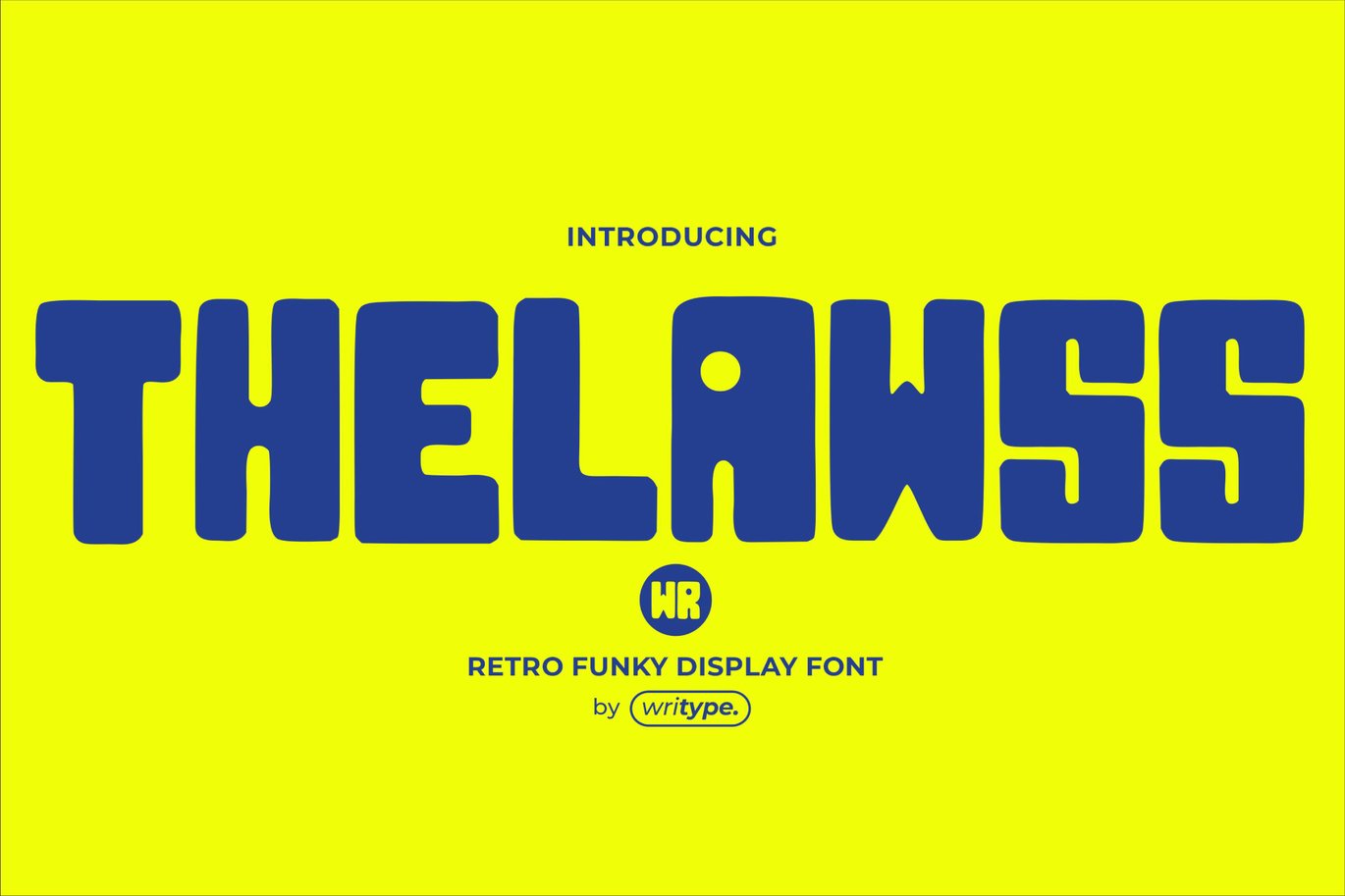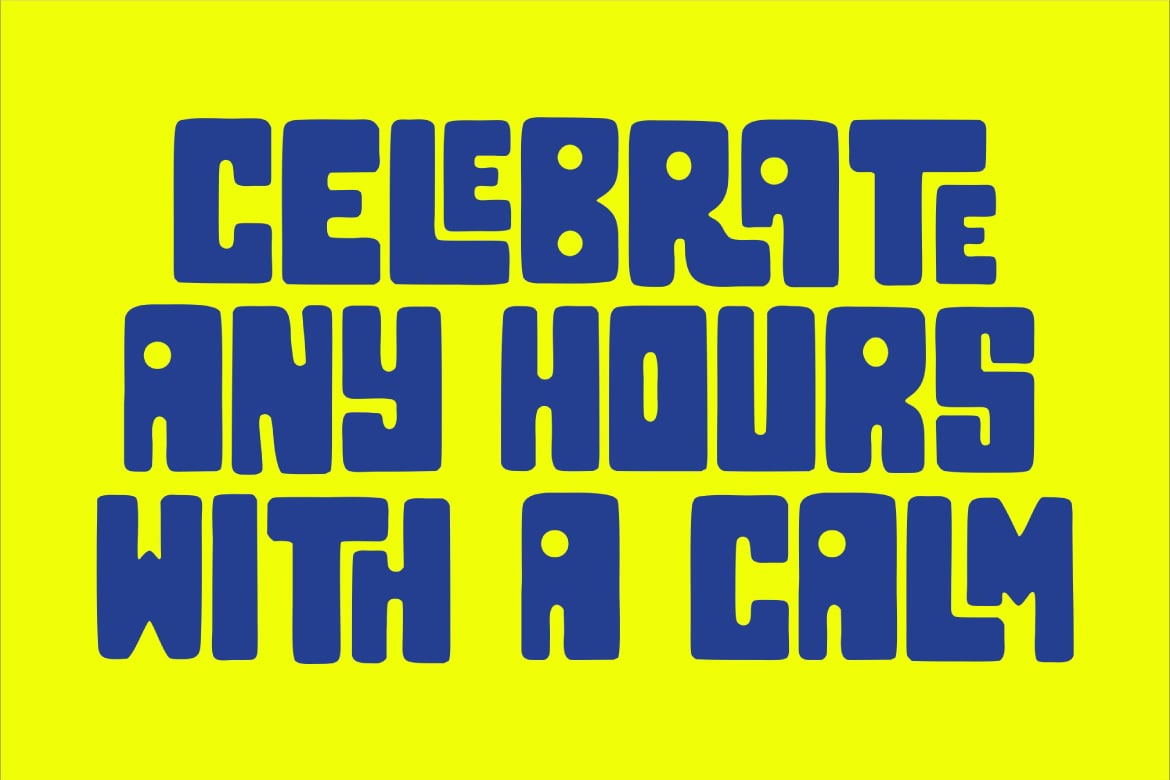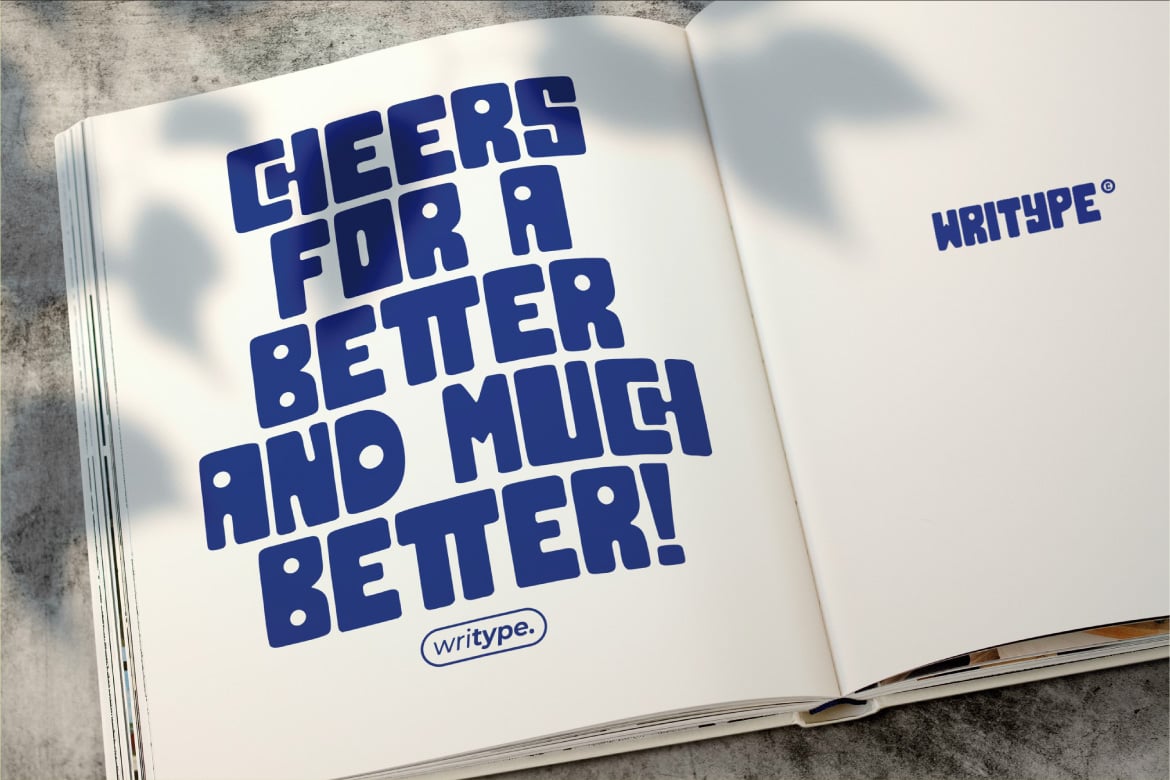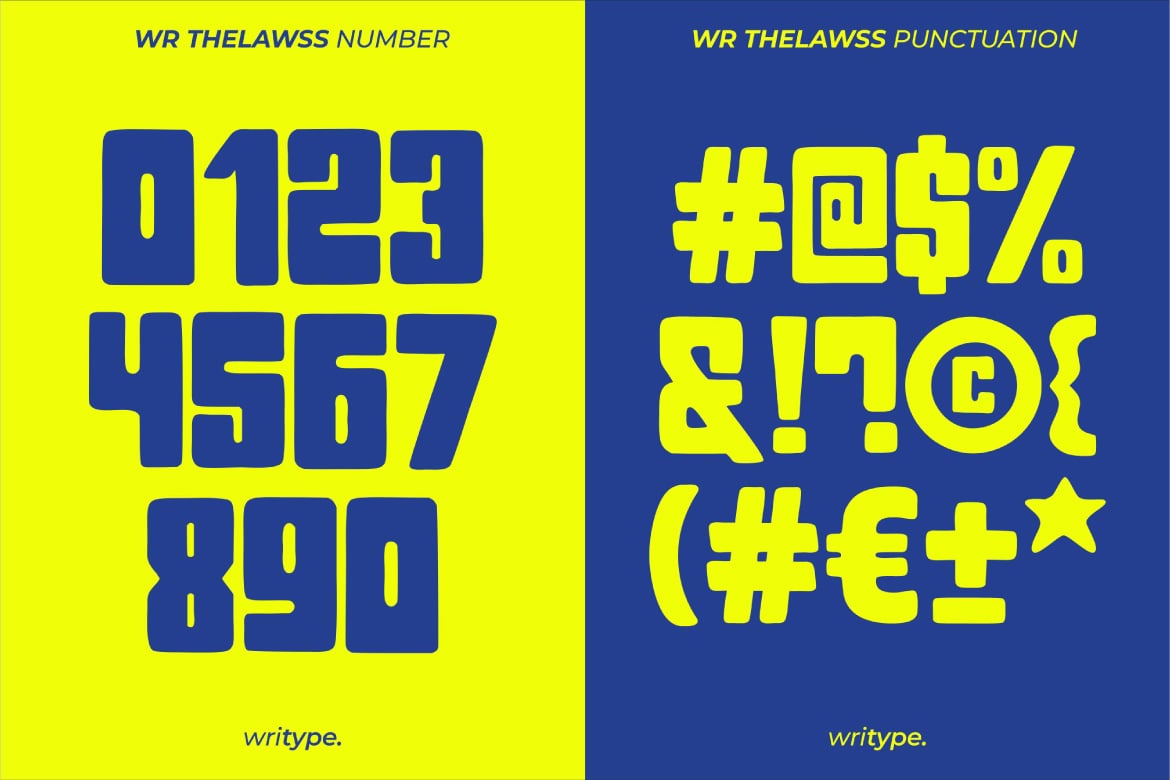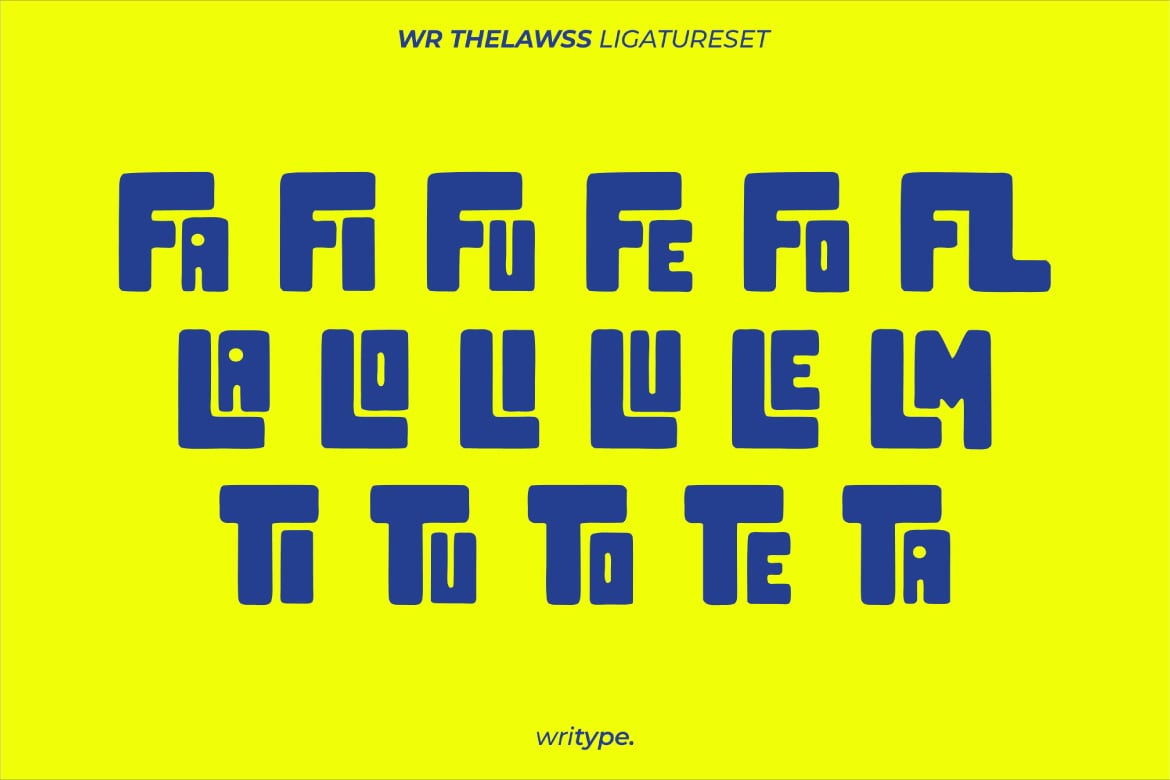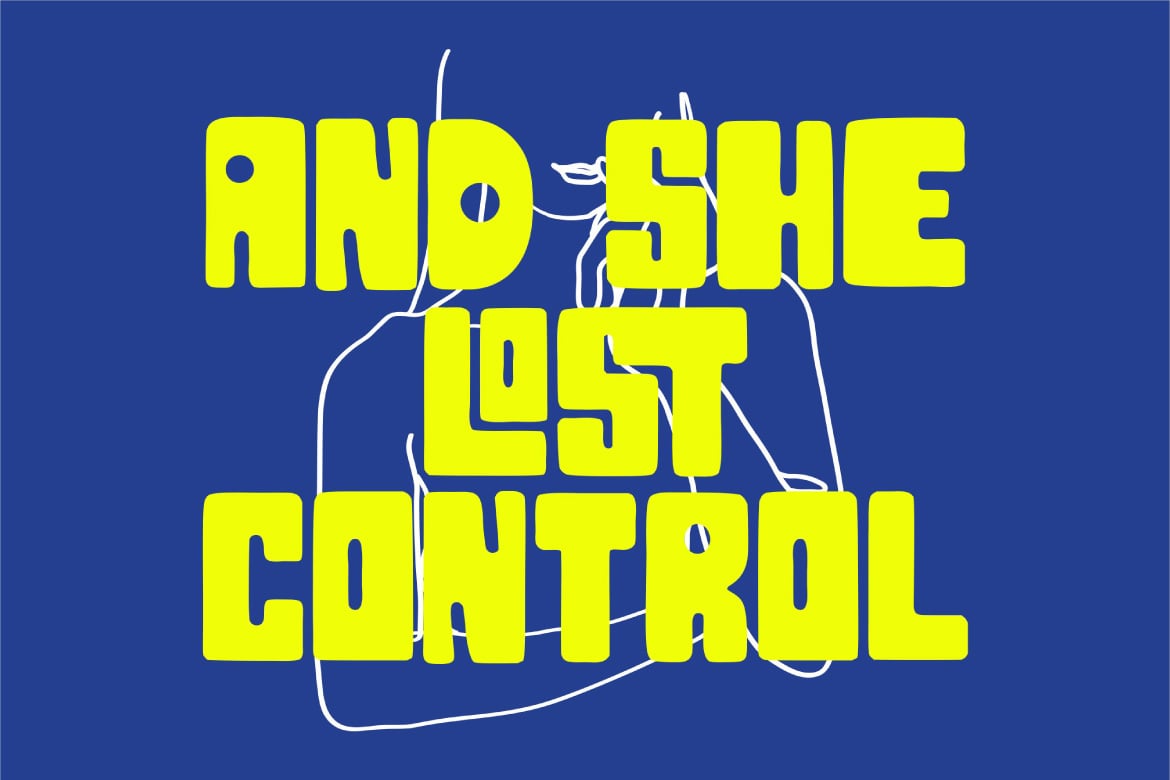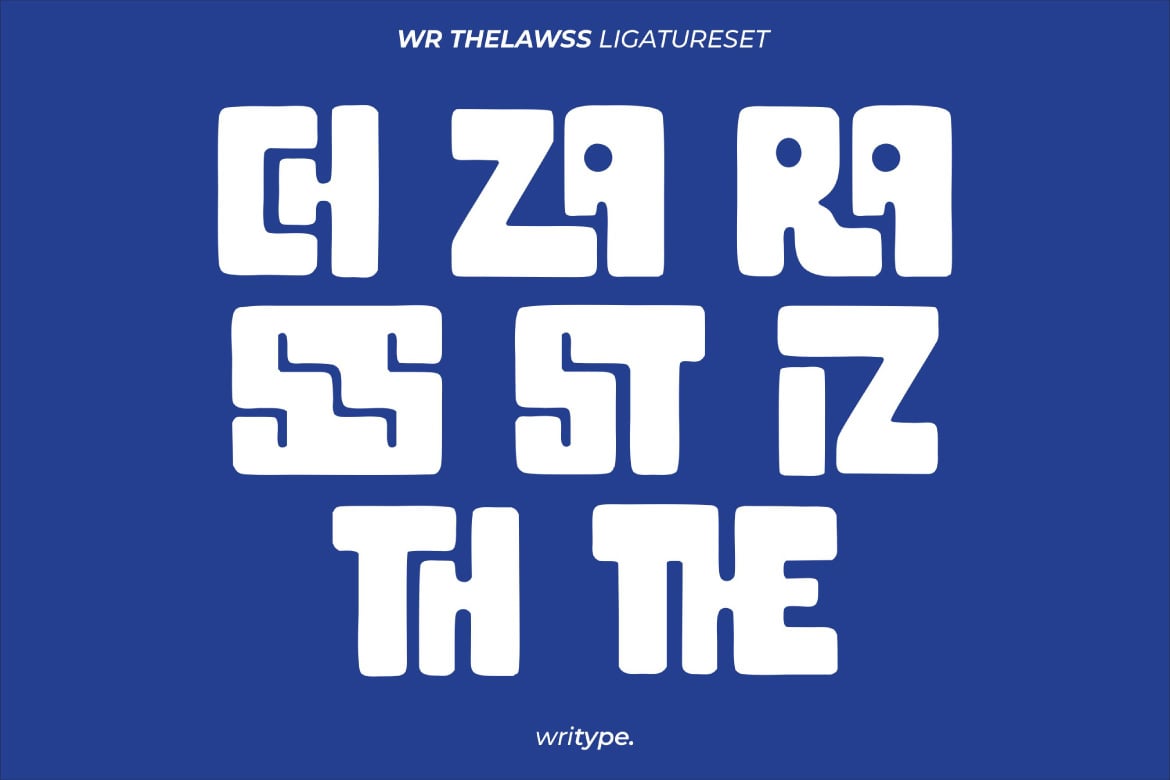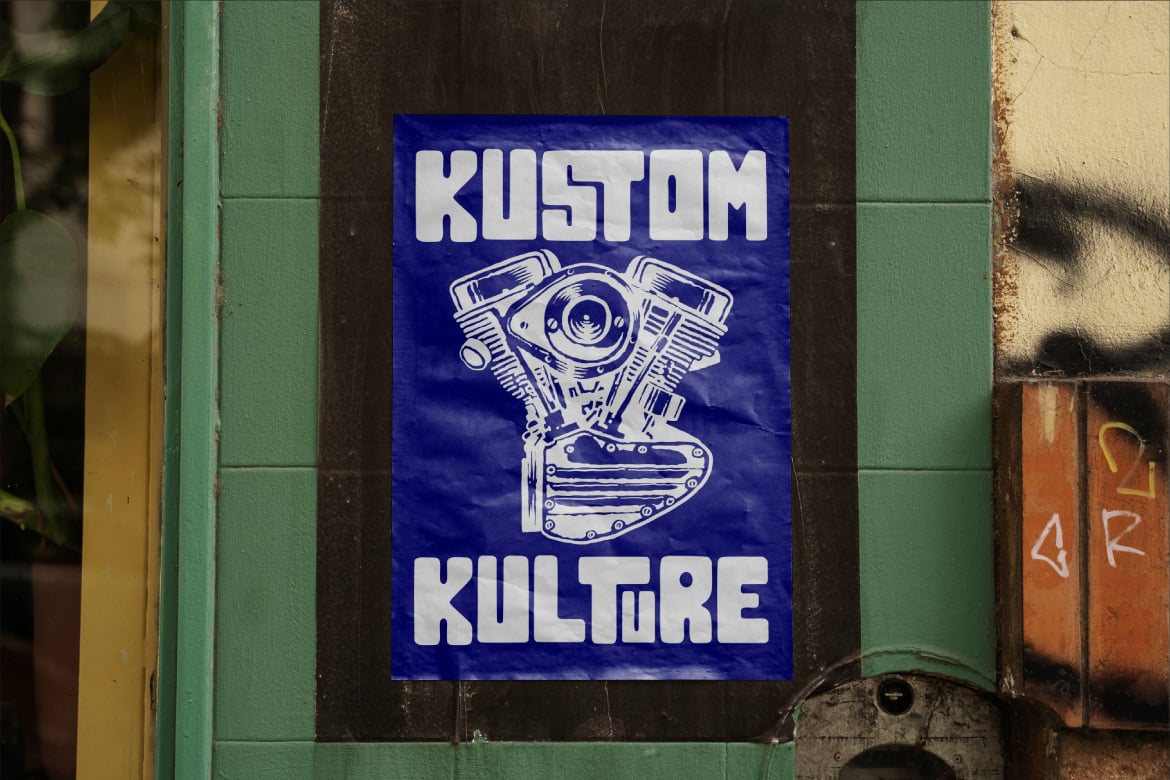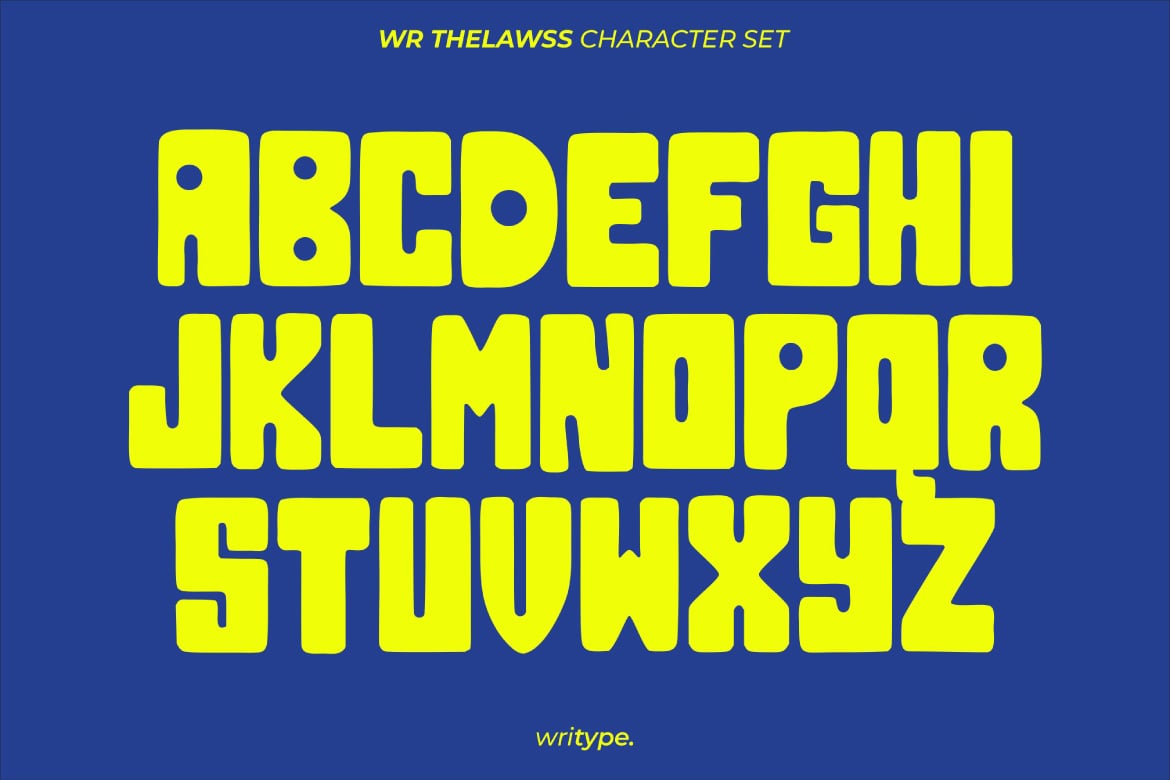
Thelawss – Retro Funky Font
WR Thelawss – Retro Funky Font by WriType
WR Thelawss is a thick, hand-drawn font packed with fun and abundant ligatures, perfect for creative design exploration. Its bold personality makes it ideal for posters, branding, and more. Let your designs stand out with WR Thelawss!